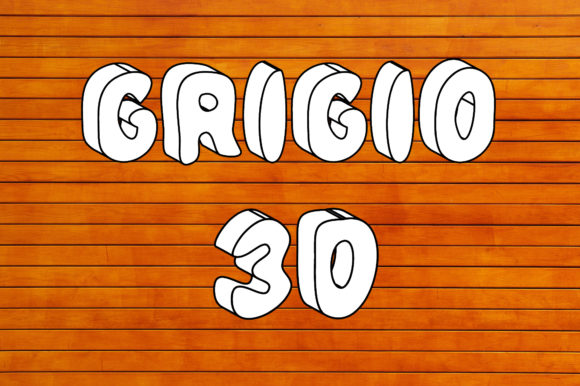
Meet Grigio Font: The Joyous Font That Will Brighten Your Design Ideas
In a world where fonts often play second fiddle, Grigio Font emerges as a captivating and vibrant exception. Designed by the ingenious Vladimir Carrer, Grigio is not just a font; it's a captivating personality that dances across your designs, leaving a trail of joy and creativity.
Picture this: A whimsical and casual 3D color font, Grigio is the epitome of visual delight. Its cartoon-like charm and vibrant color palette breathe life into any design concept, turning the ordinary into the extraordinary. With Grigio, your designs will radiate a unique and playful energy that captures the imagination and leaves a lasting impression.
Grigio's versatility knows no bounds. Whether you're a seasoned designer or a creative enthusiast, this font is your ultimate companion. Its boundless applications range from eye-catching logos and social media graphics to playful invitations and captivating branding materials. Grigio effortlessly elevates any project, infusing it with a vibrant and joyful spirit.
Imagine the smiles that will blossom when your customers see their designs adorned with Grigio's playful charm. This font has the uncanny ability to evoke emotions, creating a connection between your brand and your audience. Grigio's charisma is contagious, spreading joy and delight wherever it goes.
Grigio Font: A Symphony of Creativity Awaits You
Step into the world of Grigio Font, where design and joy converge. Let your imagination run wild as you explore the endless possibilities that await. Experience the transformative power of a font that breathes life into your designs, captivating your audience with its vibrant charm. Grigio is more than just a font; it's an experience that will leave an indelible mark on your creative journey. Get ready to witness the magic unfold as Grigio elevates your designs to new heights of visual delight.